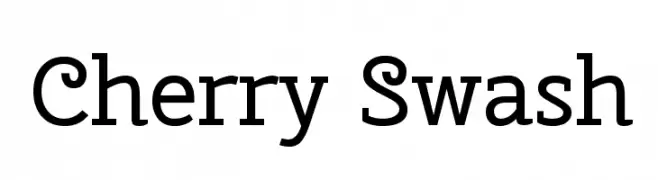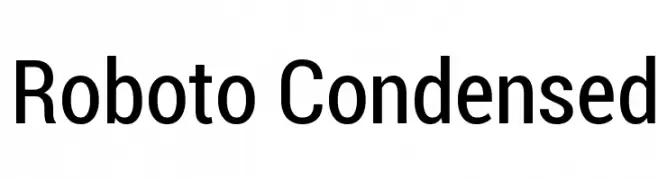
A versatile collection of directional arrows with various styles and orientations.
A bold, modern sans-serif font with excellent legibility and versatility.
A modern, versatile sans-serif font with clean, rounded letterforms and balanced proportions.
A modern, condensed sans-serif font with excellent readability and versatility.
A versatile set of arrow designs with varied styles and directions.
A versatile collection of monochrome social media logos, designed for easy recognition and integration.
Bold, distressed style with both solid and outlined versions for versatile use.
A classic serif font with elegant curves and modern swashes.